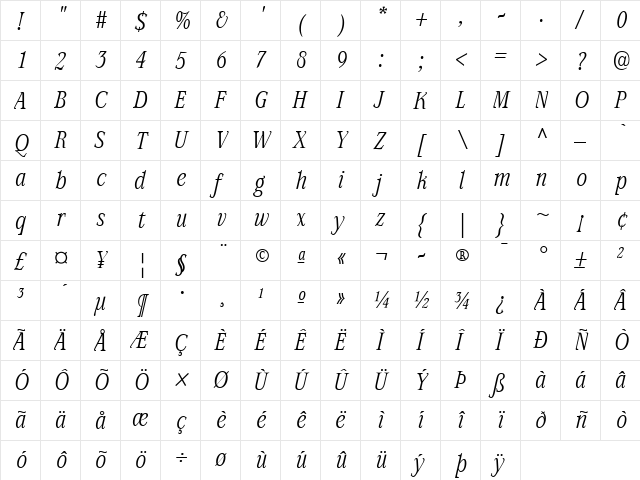
AIAlign Italic
Design Context for AIAlign Typeface
AIAlign is a composed and adaptable typeface that performs quietly and consistently across a wide range of design contexts. The dynamic lean of this cut emphasises speed and emphasis in any layout.
Pro Tip: Try AIAlign for annotation and caption copy alongside an upright companion — the contrast in angle creates a dynamic but ordered typographic system.